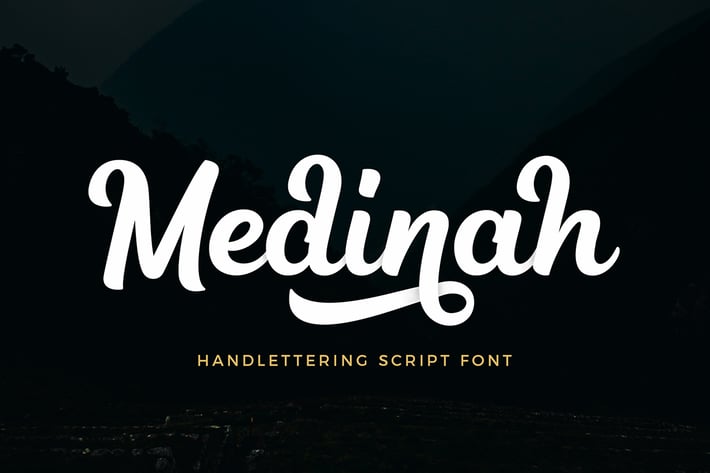
Medinah Script Font
Medinah is a stunning and bold script, completely suitable for a large number of designs. This font will leave you breathless, and give all your designs the impact they need to stand out from the crowd.
- Uppercase & lowercase
- Number & punctuation symbols
- Stylistic Sets
- International characters (Multilingual)